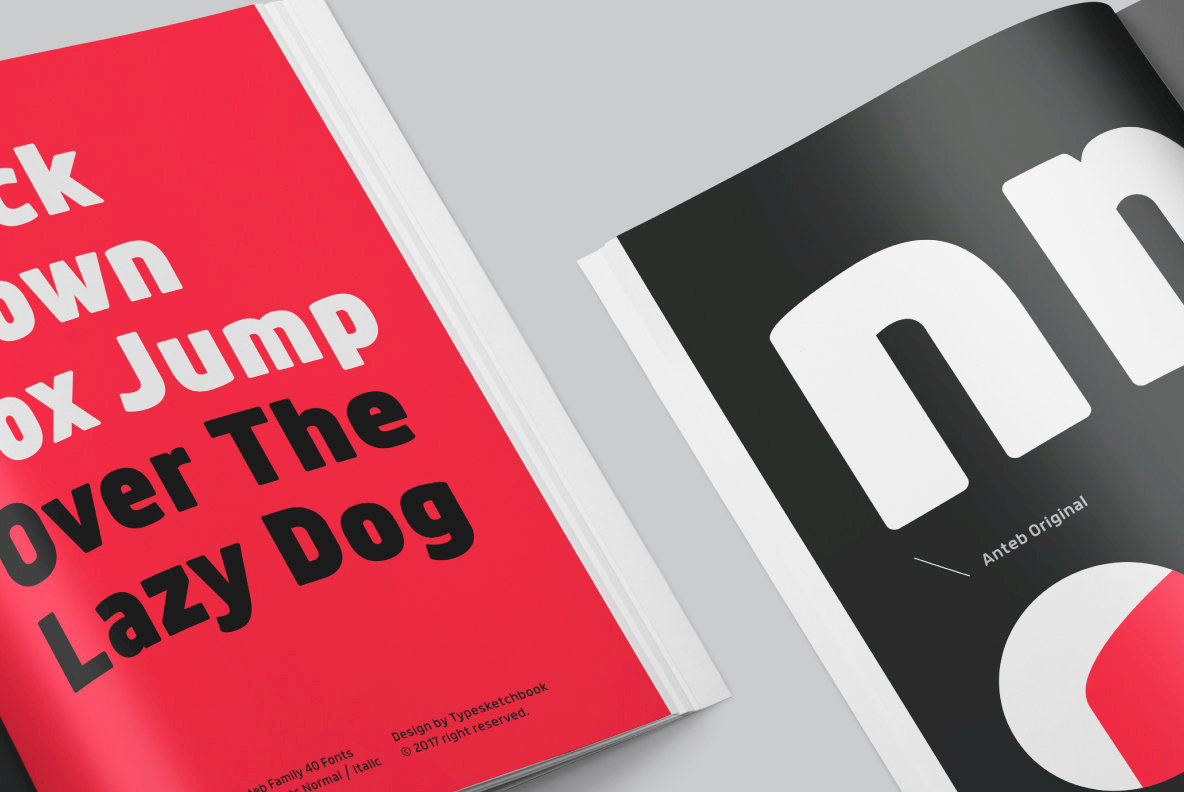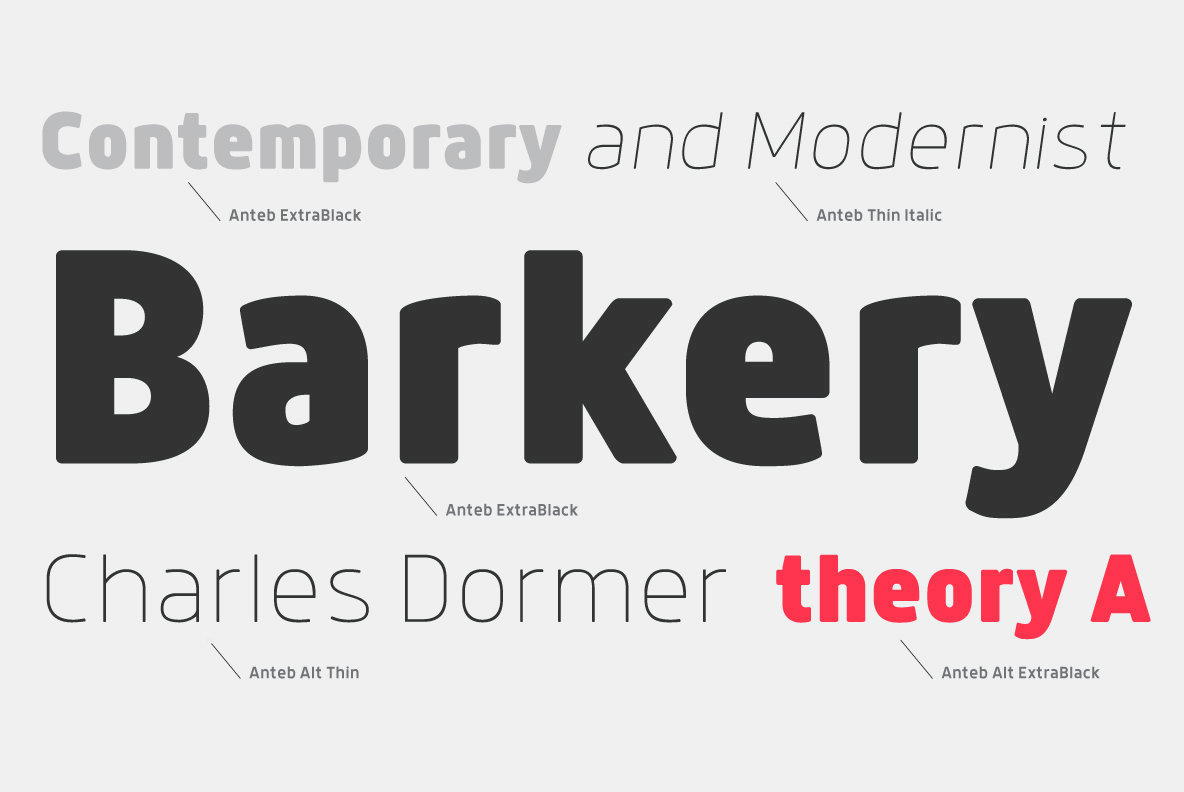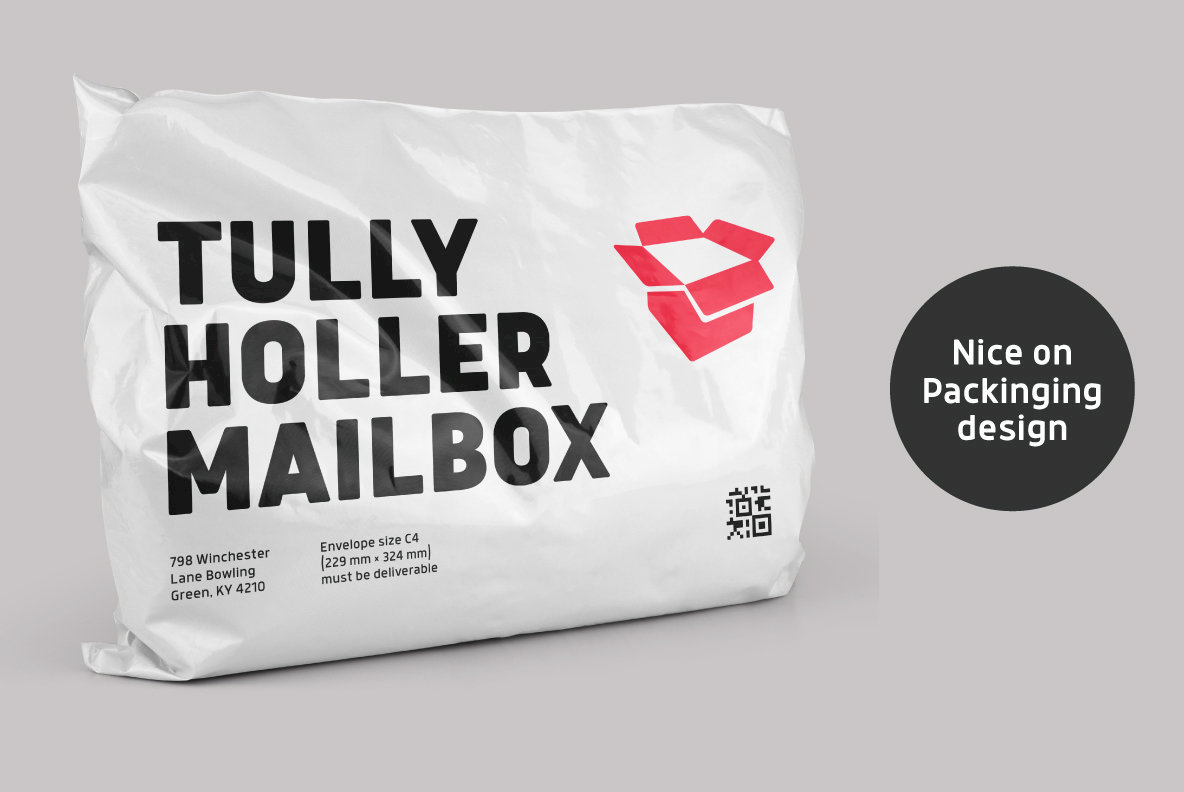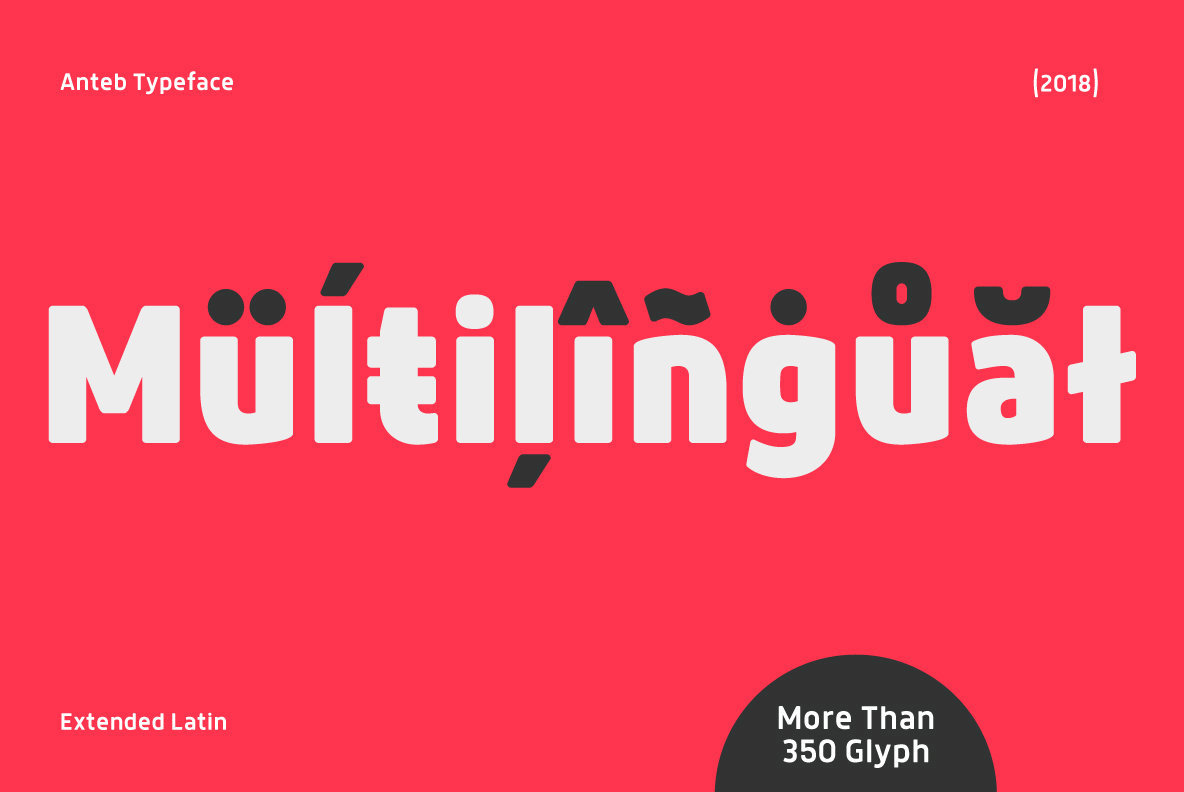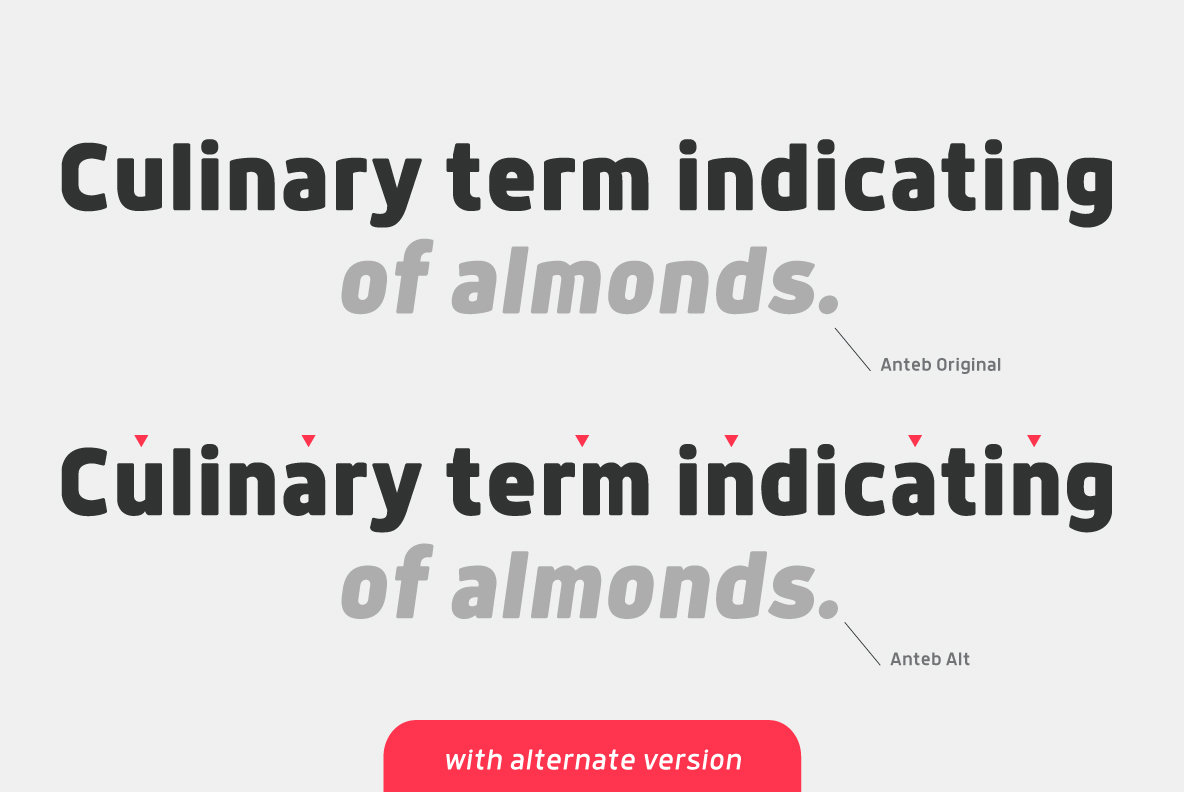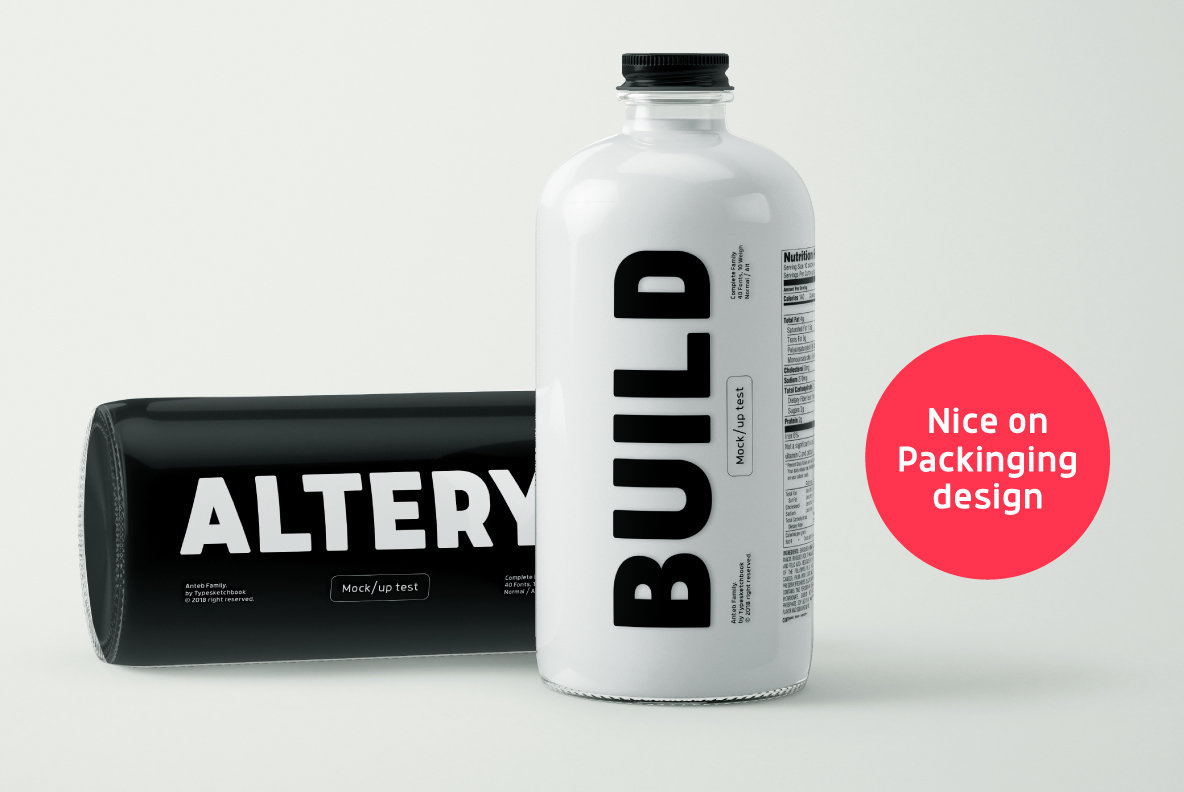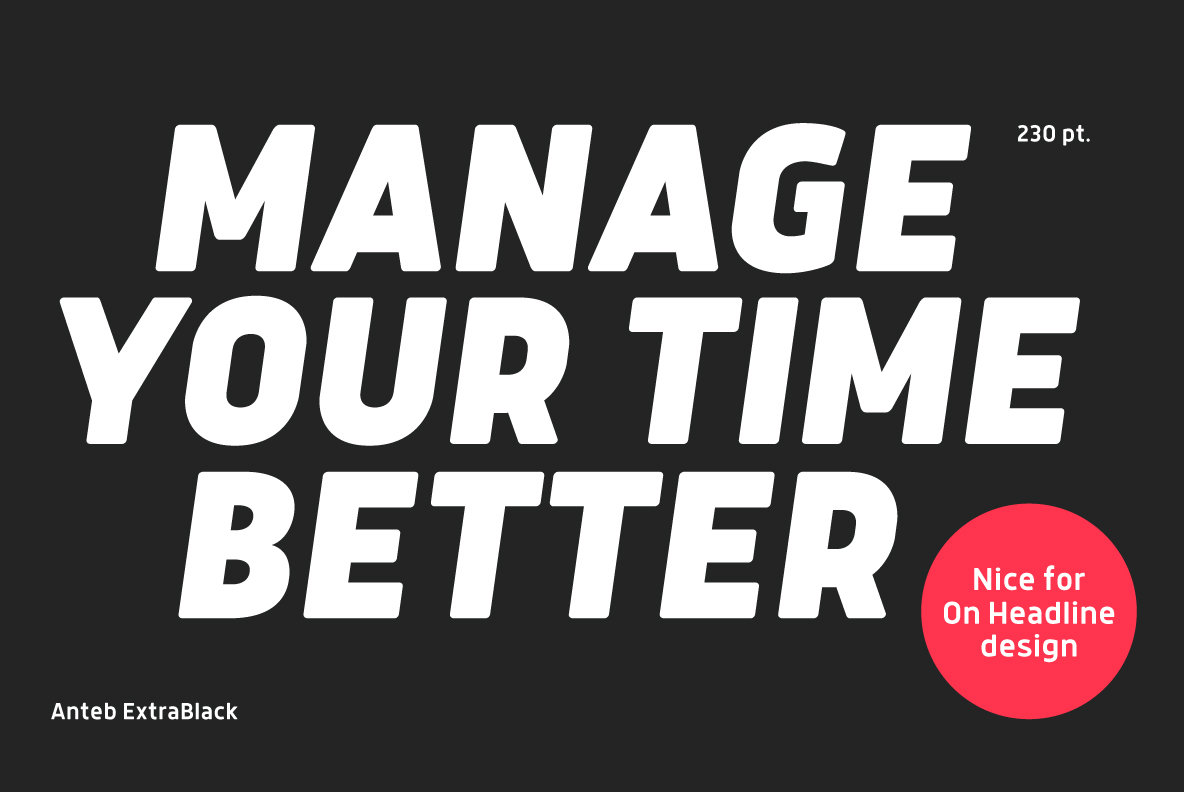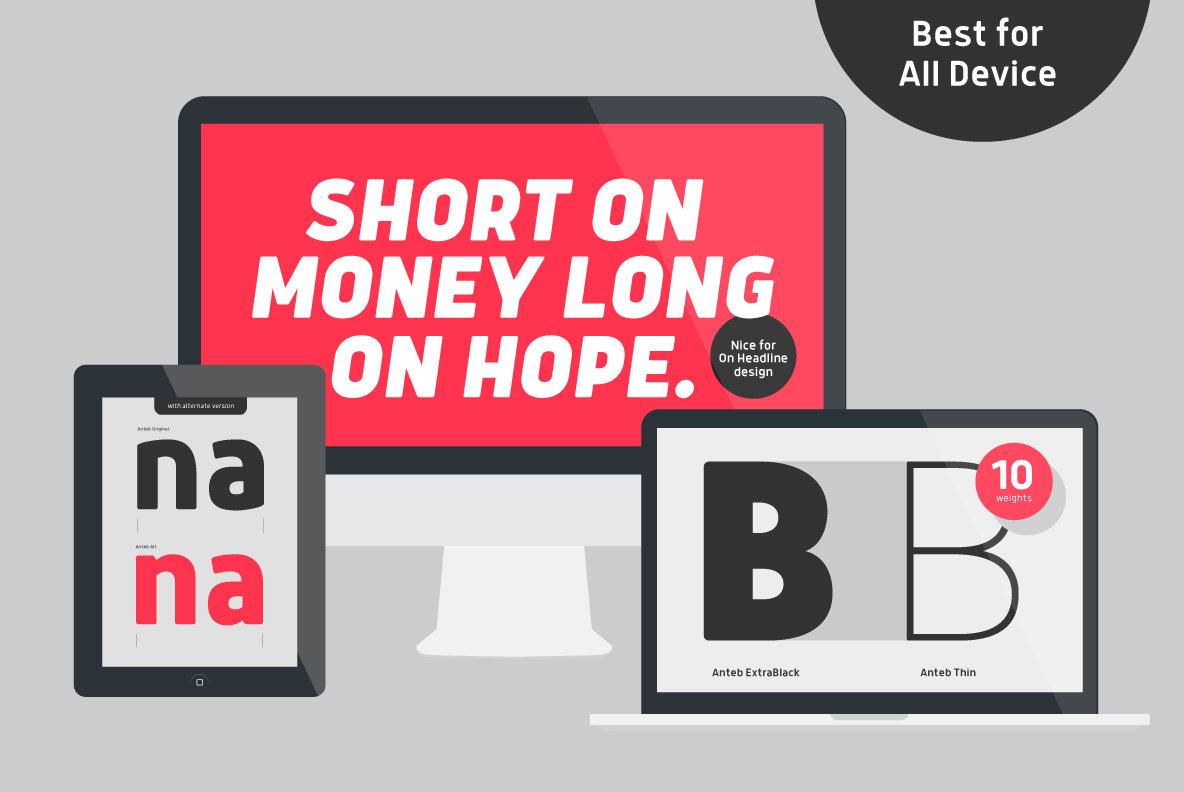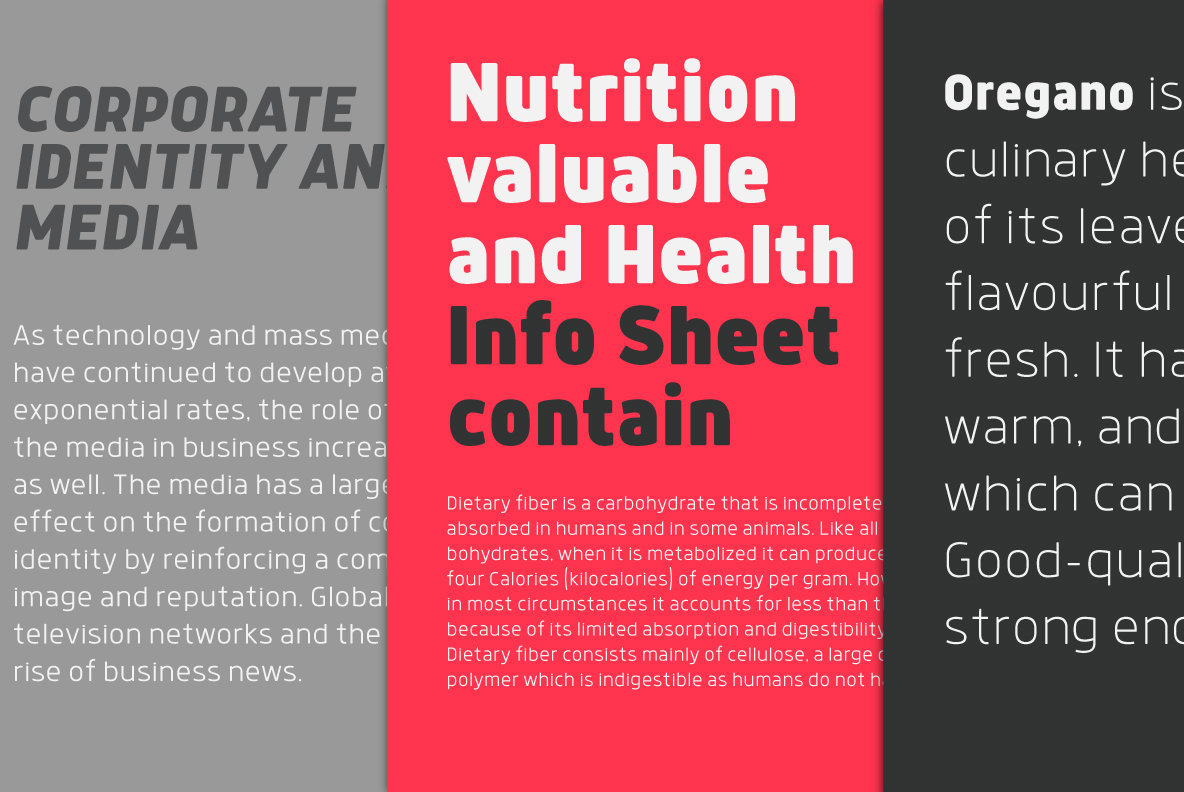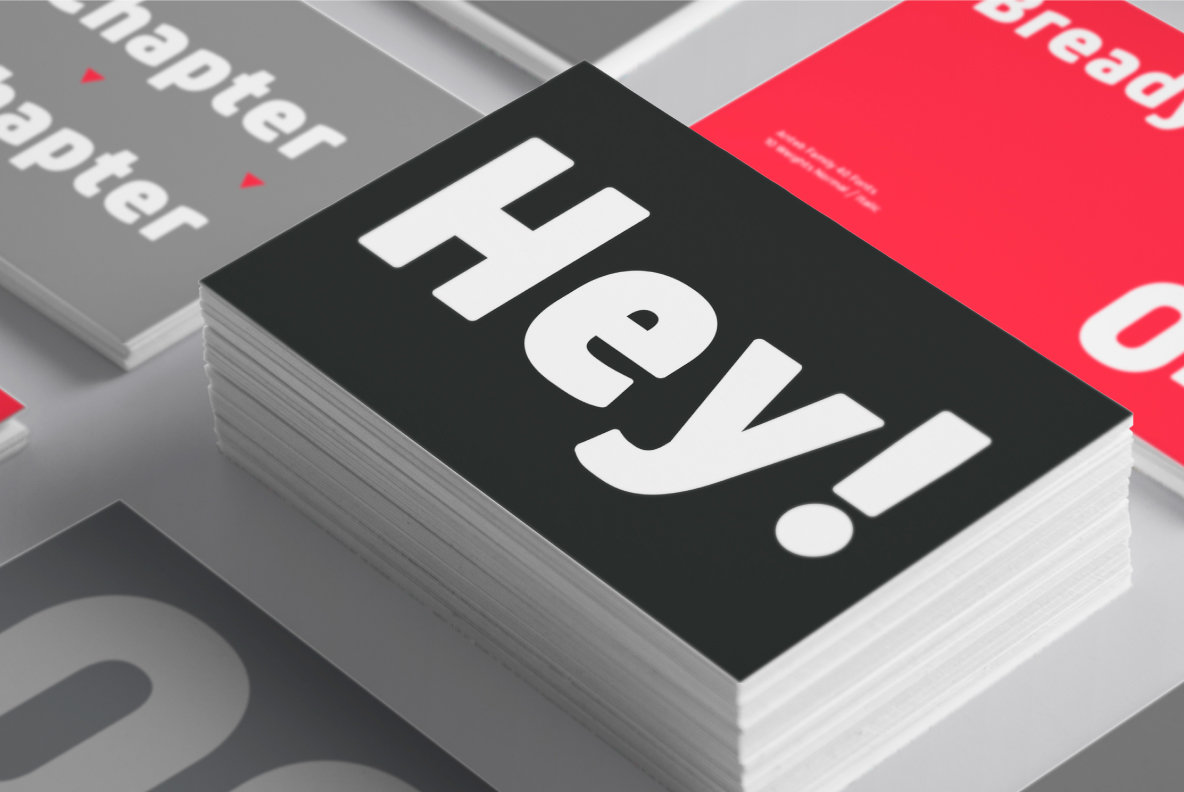
Anteb Font
Anteb font family is one of those large and useful families that you really can’t miss if you are looking for typeface combining originality and legibility. Anteb is one of these – a sans serif with modern look designed very smart with rounded corner.
It is developed in 10 separate weights ranging from Thin to ExtraBlack, each coming with Alternate version, which is well suited for a variety of typographic applications such as headlines and small texts. The Anteb font family supports multiple languages and is available as both webfont and desktop font.
Located in the capital city of Thailand, Chatnarong Jingsuphatada started his type design career while working as a graphic designer. Throughout his career, whenever he was unable to find exactly what he needed for his own design projects, he began to create new typefaces rather than settle for ones that didn’...